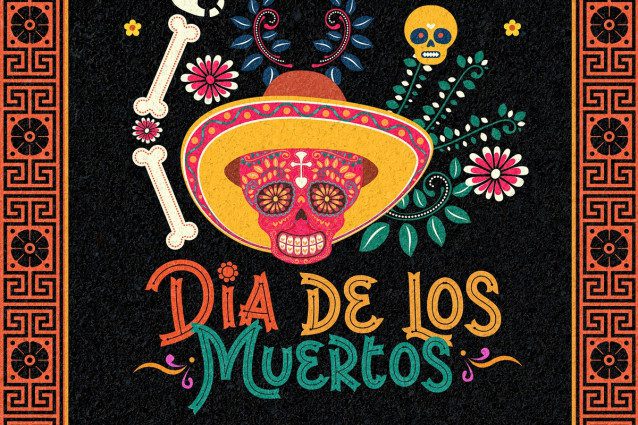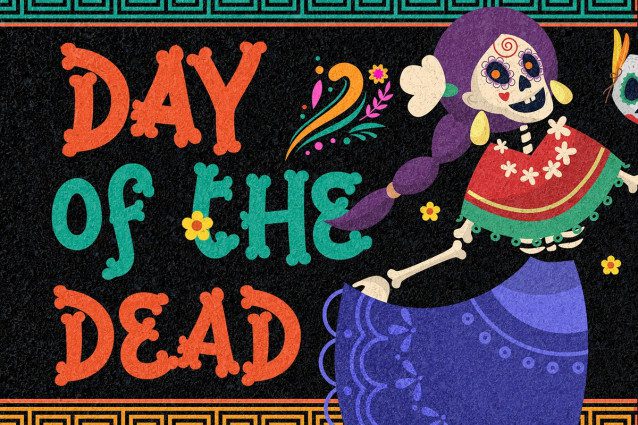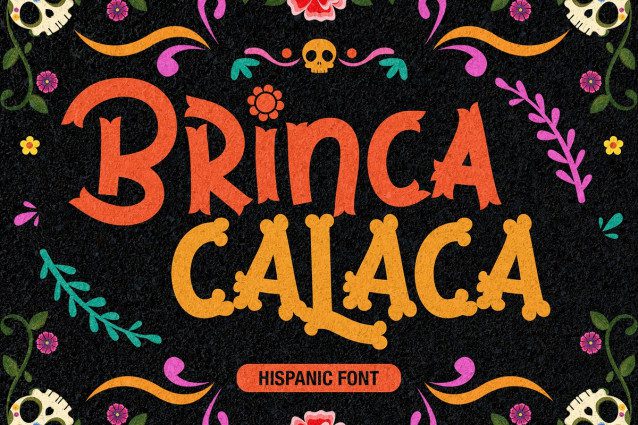
Brinca Calaca Font
Brinca Calaca Font is a vibrant Hispanic font family inspired by Dia de los Muertos, featuring bone-styled glyphs, festive ornaments, and a joyful Latin spirit. With Regular, Inline, and Bone variants, this playful display font is perfect for holiday posters, cultural branding, and themed events that need bold personality and handcrafted charm.